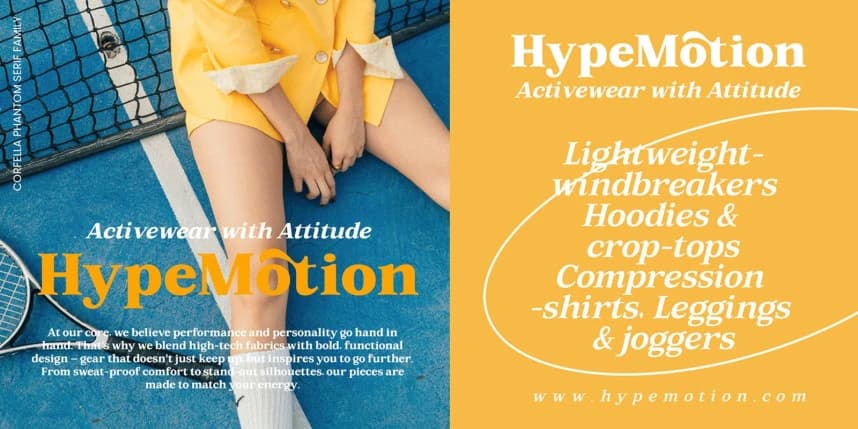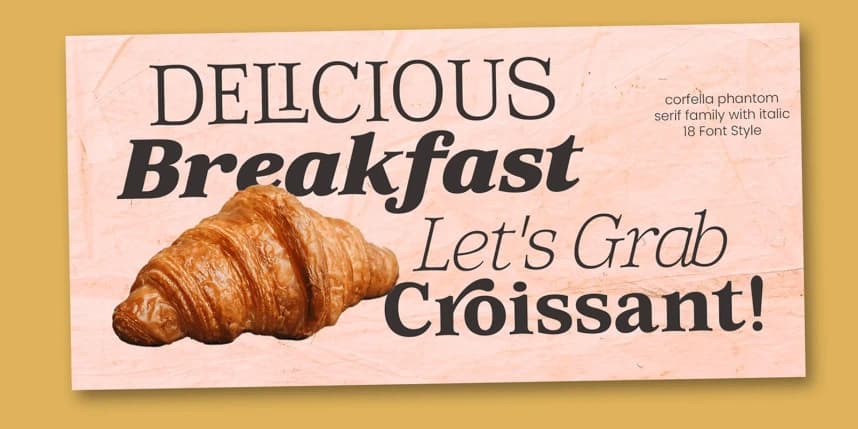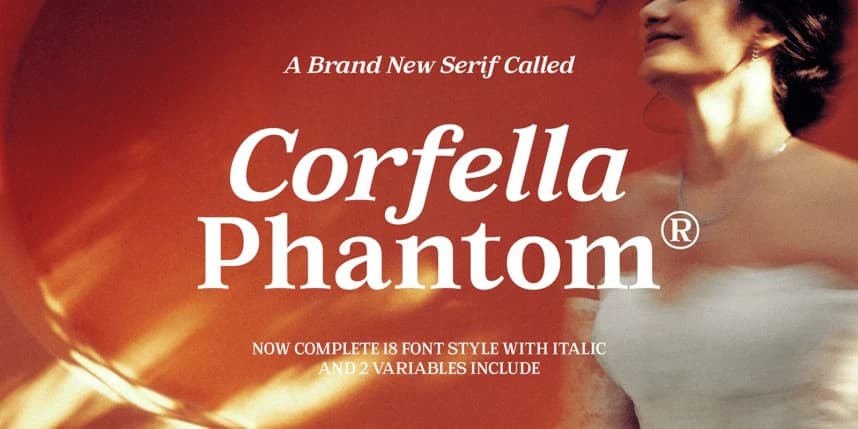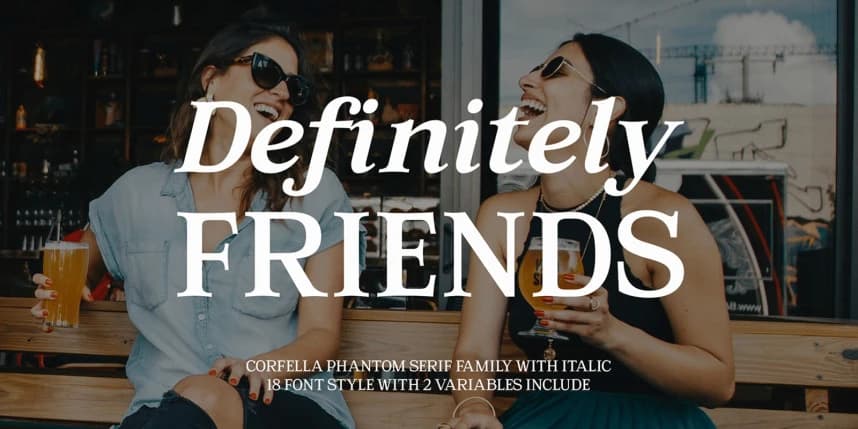
Corfella Phantom Font Family is an Elegant serif font that comes in 20 different weights. Designed to reflect nature, creating a sense of softness and natural expression. The concept is pushed in a usability-focused direction, to serve as both a bold tool and a classy communicator.